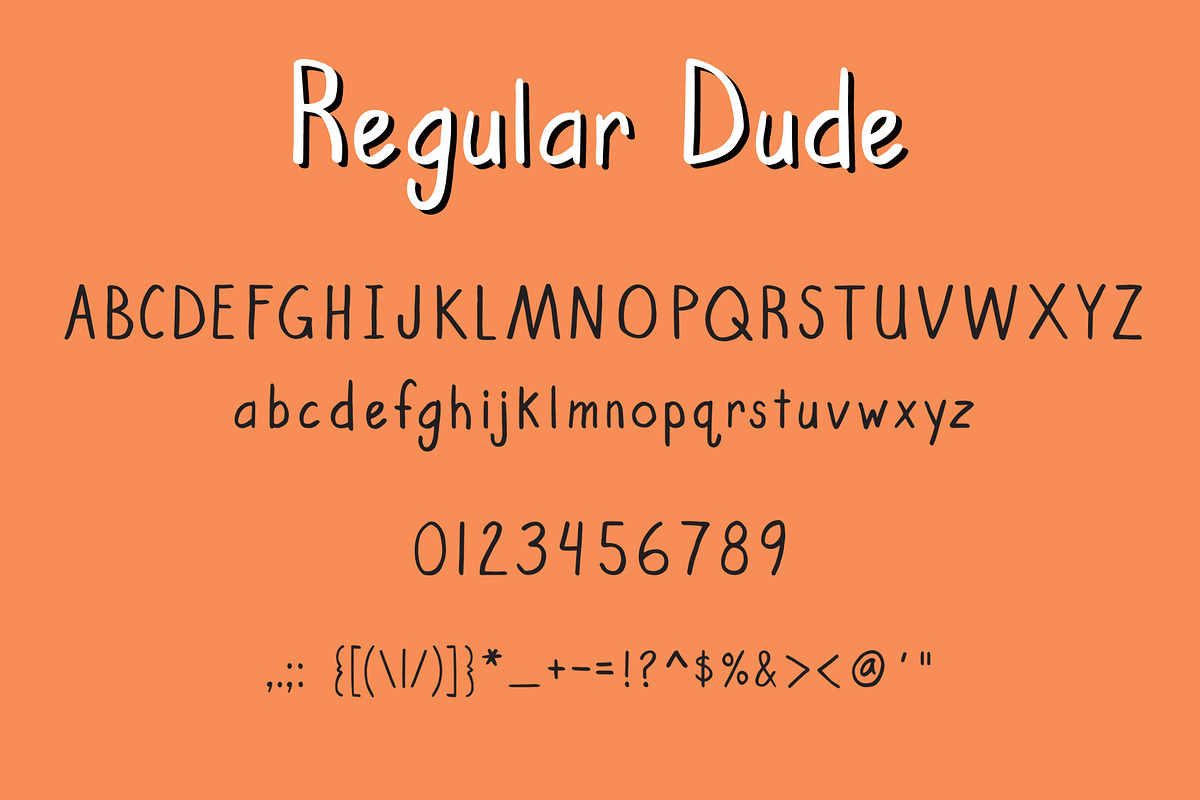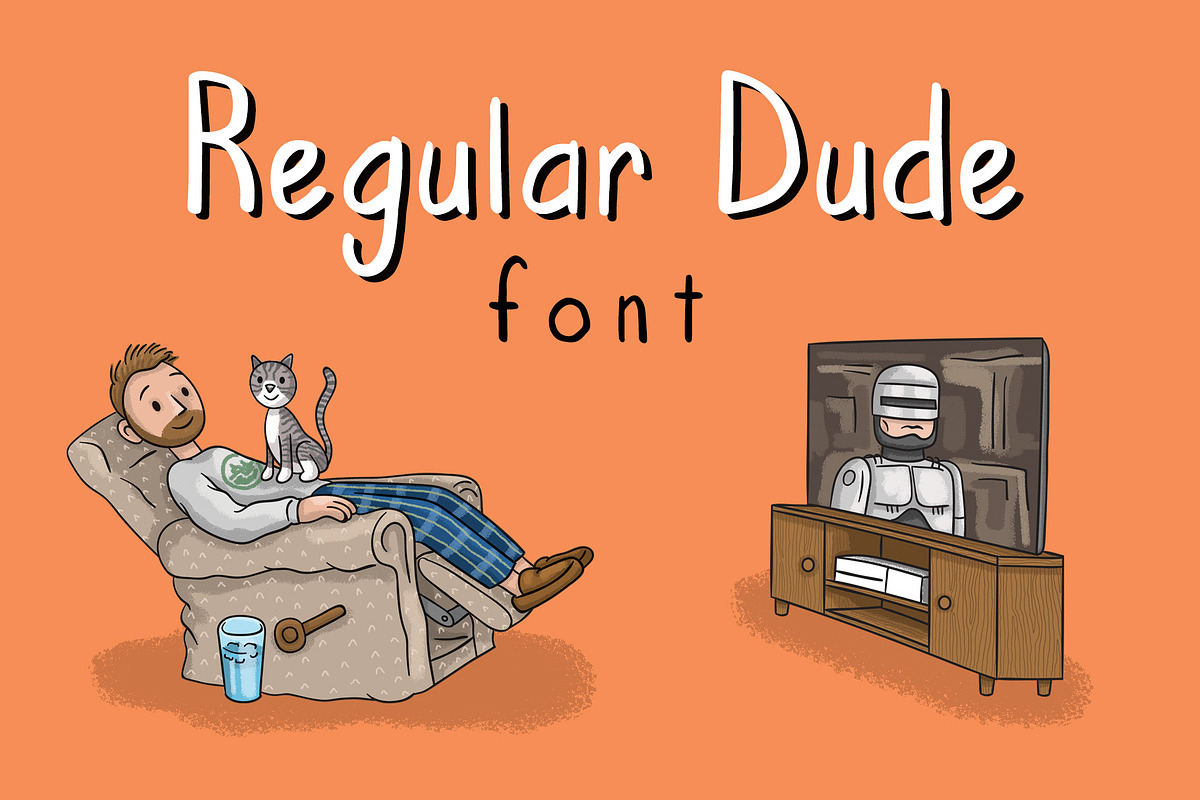
Regular Dude Font
Hand written font that's perfect for any of your projects. Artwork of dude and TV included!
Regular Dude Font by ottootto fits naturally into Branding, posters, packaging, typography.